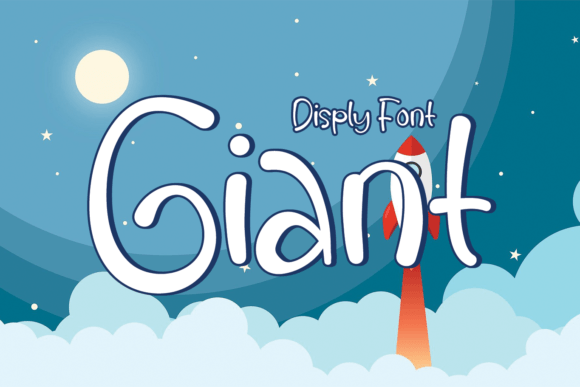
Giant: A Cute Display Font for Creative Projects
Sometimes, a font just clicks. It captures the exact vibe you've been searching for, making your creative vision feel instantly more polished and complete. That's the experience many designers have when they discover Giant, a charming display typeface that balances cleanliness with a touch of playful quirkiness. It’s a typeface designed to stand out, making it a fantastic asset for anyone looking to inject personality and warmth into their visual projects.
Giant is a modern typography choice that excels where impact and approachability are key. As a display font, its primary strength is in headlines, logos, and short bursts of text where its unique character can shine. Think of it as the friendly, confident voice of your brand identity. Its slightly rounded forms and subtle quirks give it a handcrafted feel, distinguishing it from more rigid sans serif or serif fonts. This makes it particularly effective for designs that aim to feel human, creative, and relatable.
Where Can This Creative Font Make an Impact?
The versatility of Giant allows it to adapt to a wide range of design applications. Its inherent charm makes it especially well-suited for projects that need a personal, artisanal, or upbeat touch.
Tips for Choosing and Using a Display Typeface
While a font like Giant is visually appealing, integrating it effectively requires a bit of strategy. Here’s how to make the most of a premium font download:
First, always test for readability in context. A font that looks great on a design asset preview might need size or spacing adjustments in your final layout. Giant works best at larger point sizes; for body text, pair it with a clean, neutral sans serif or serif font to ensure your content remains easy to read.
Next, consider the mood. Giant’s cute and quirky nature is perfect for playful, modern, or handmade aesthetics. It might not be the best fit for ultra-corporate or serious projects, but for everything else, it’s a superb choice. When considering font pairing, look for a companion typeface that complements without competing—a simple geometric sans serif or a classic serif can provide beautiful contrast.
Selecting the right font is a critical step in the design process. It’s more than just letters; it’s about tone, recognition, and emotional connection. A thoughtfully crafted typeface like Giant provides a reliable and stylish foundation, helping you build visuals that are not only beautiful but also consistently aligned with your creative goals. Investing time in finding the perfect match pays off in designs that feel complete and intentional.